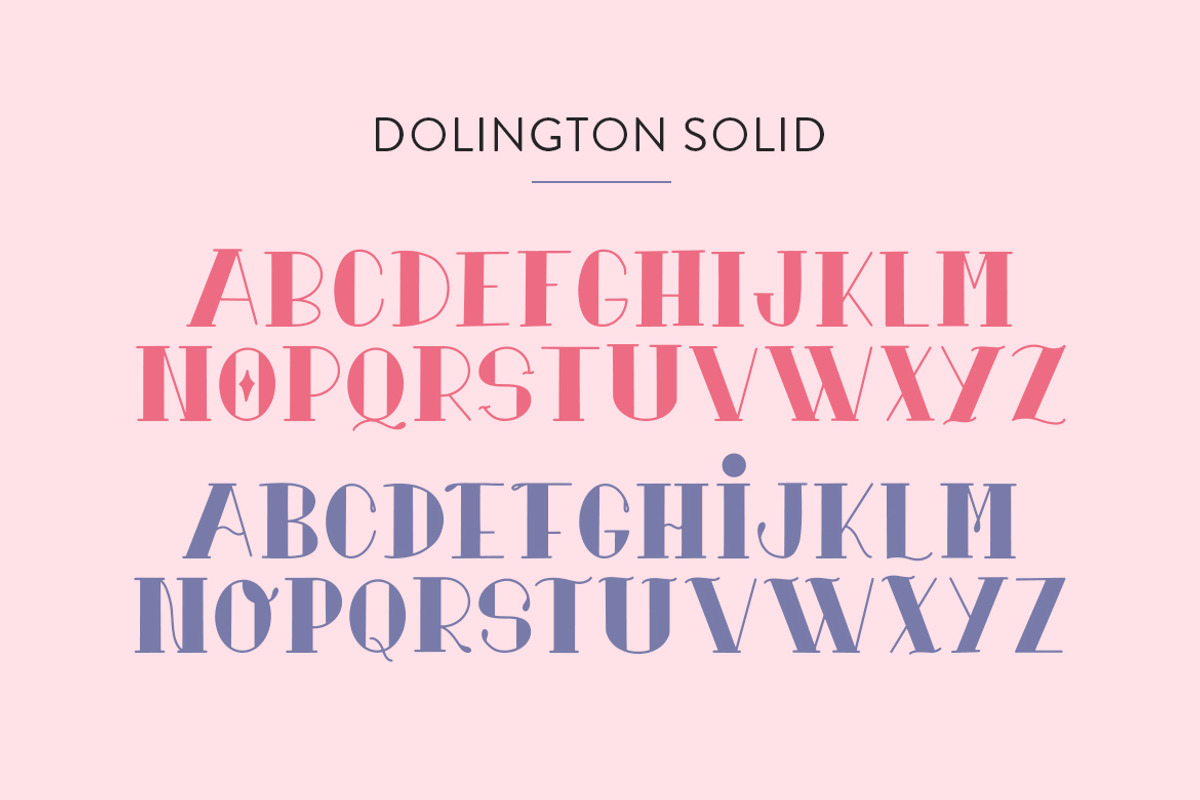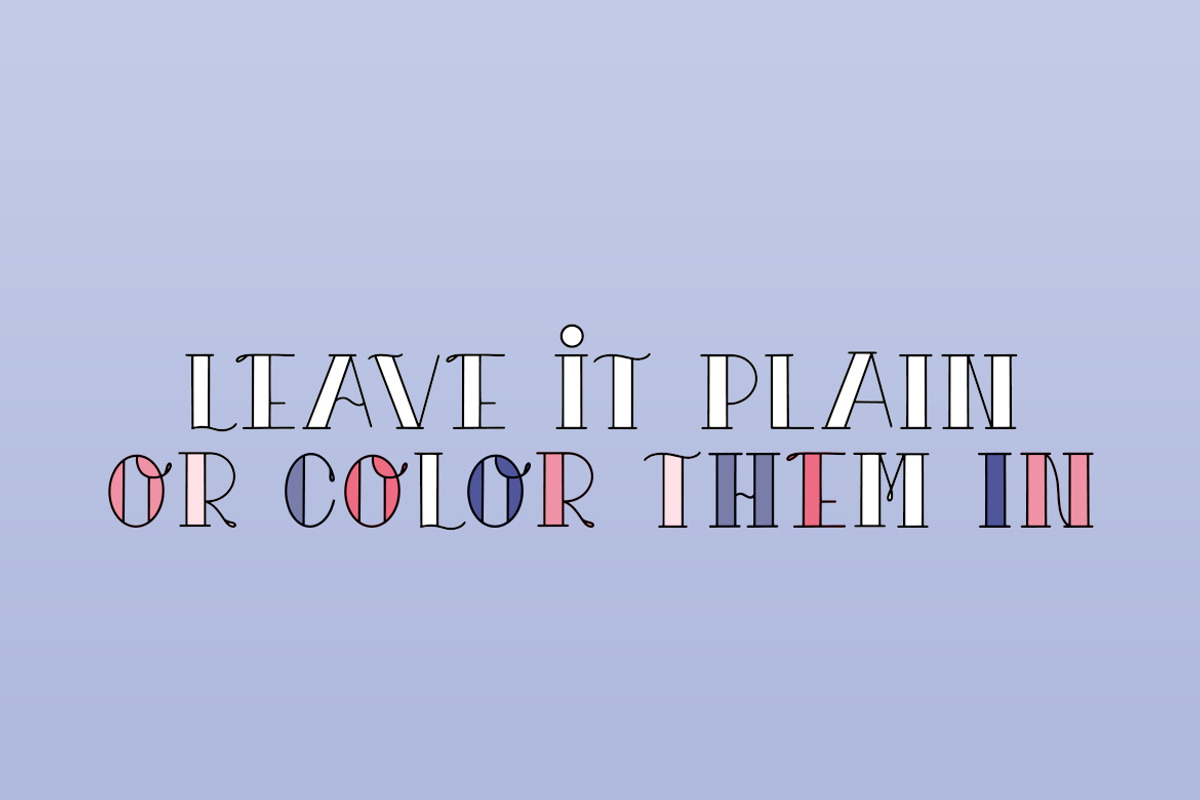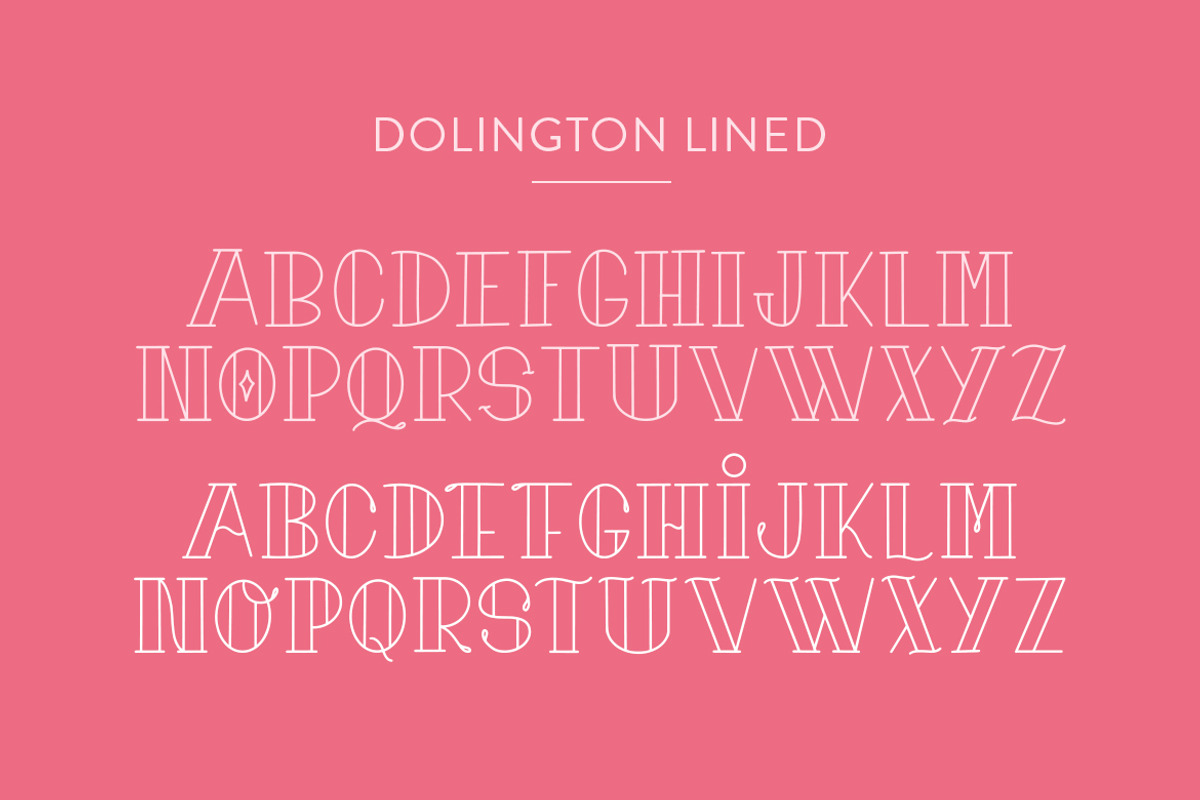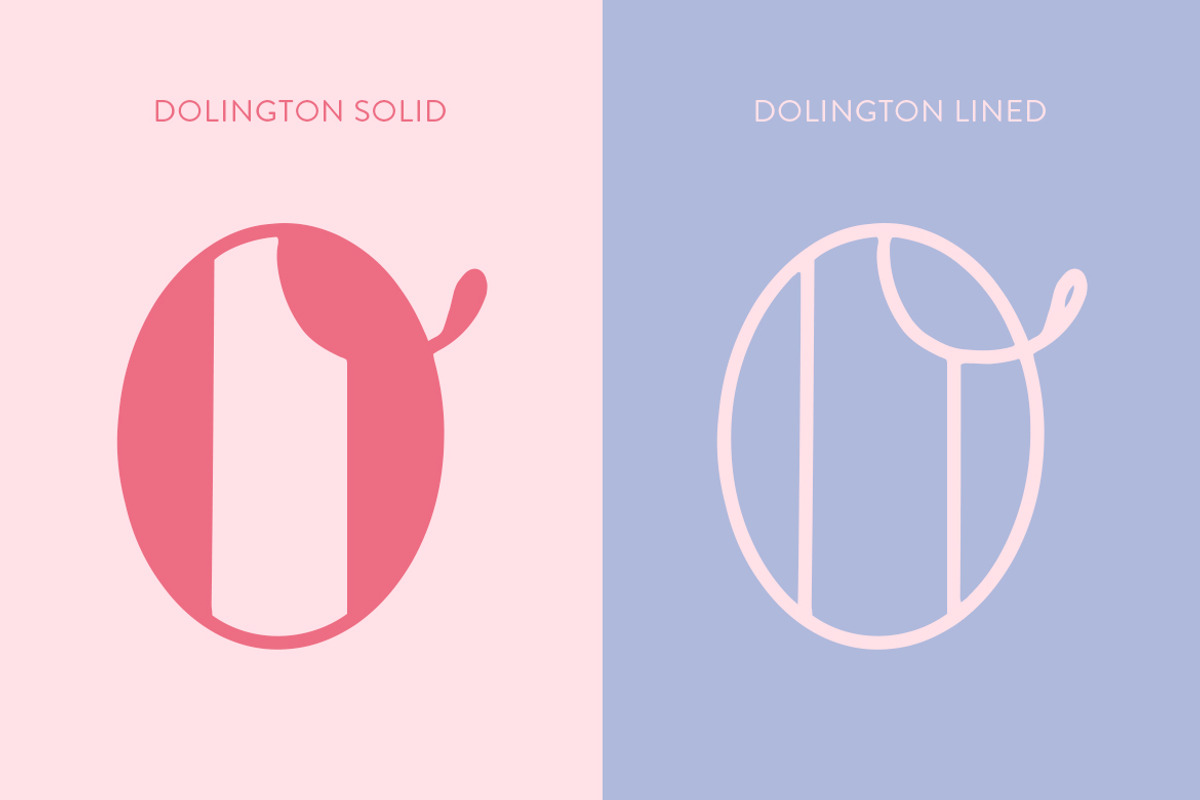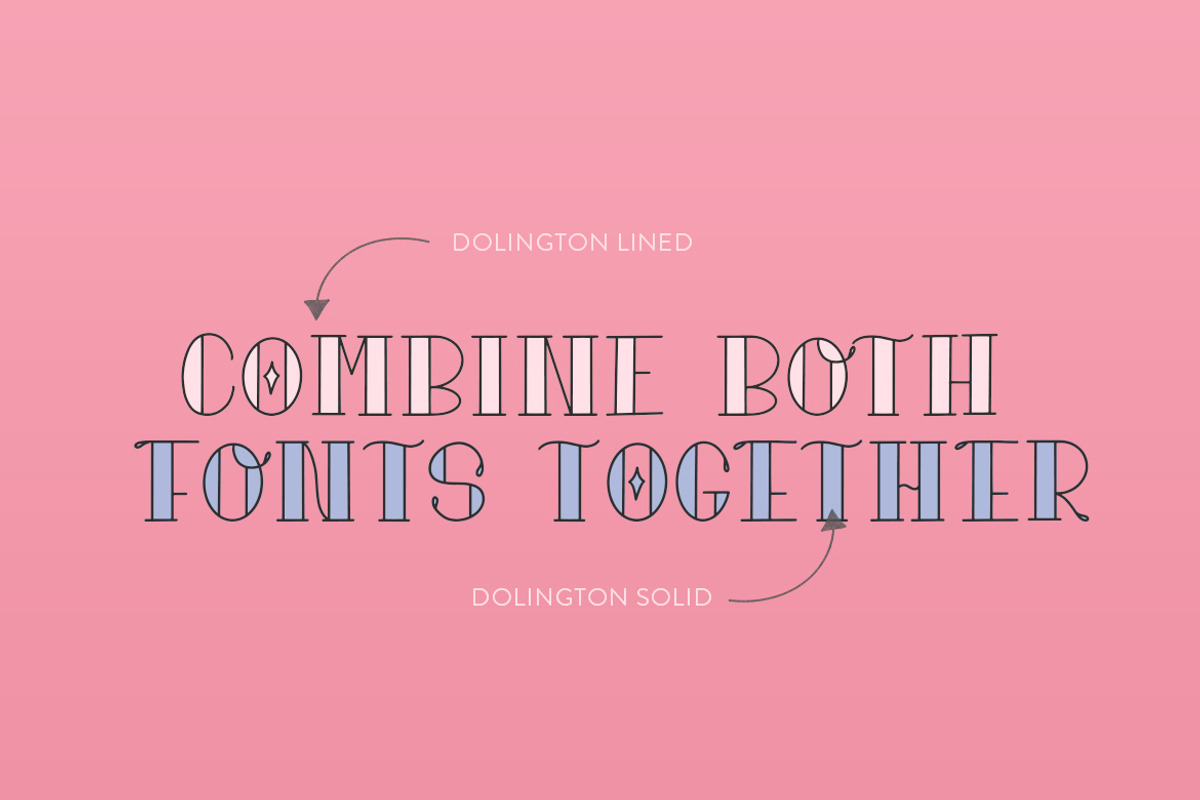
Dolington Font Duo
Why Dolington Font Duo is worth a look
Dolington Font Duo by Salt & Pepper Designs fits naturally into Branding, posters, packaging, typography.